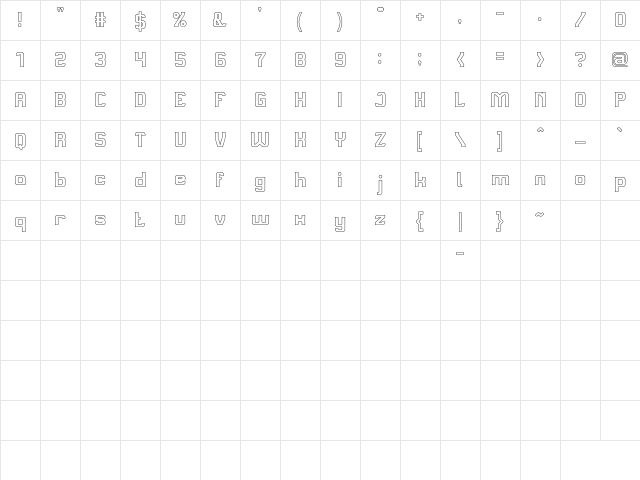
Alive in a Science Fiction Regular Free Font
Alive in a Science Fiction Regular
Alive in a Science Fiction Family
Complete Alive in a Science Fiction Regular glyph index. Displaying only characters natively supported by Alive in a Science Fiction Regular font.
Design Context for Alive in a Science Fiction
Alive in a Science Fiction is a composed and adaptable typeface that performs quietly and consistently across a wide range of design contexts.